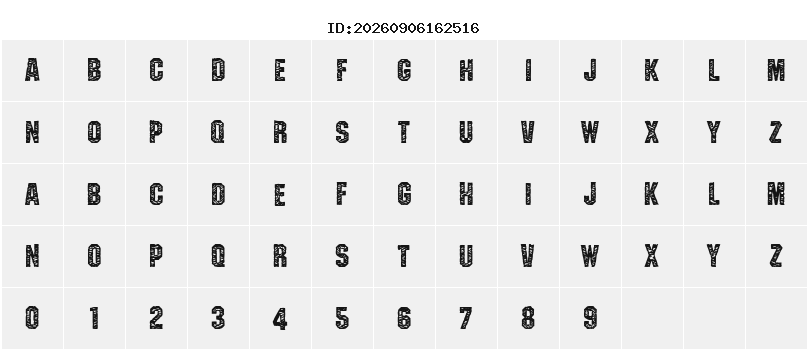
TXT Jersey Preview
• Font Name: TXT Jersey
• Full Font Name: TXT Jersey
About TXT Jersey.ttf
TXT Jersey.ttf is a modern, elegant sans-serif font designed for ultimate readability and visual harmony. Perfect for branding, headlines, web design, and print materials.